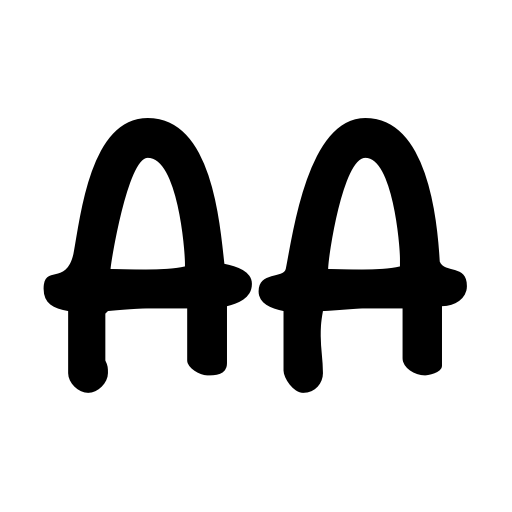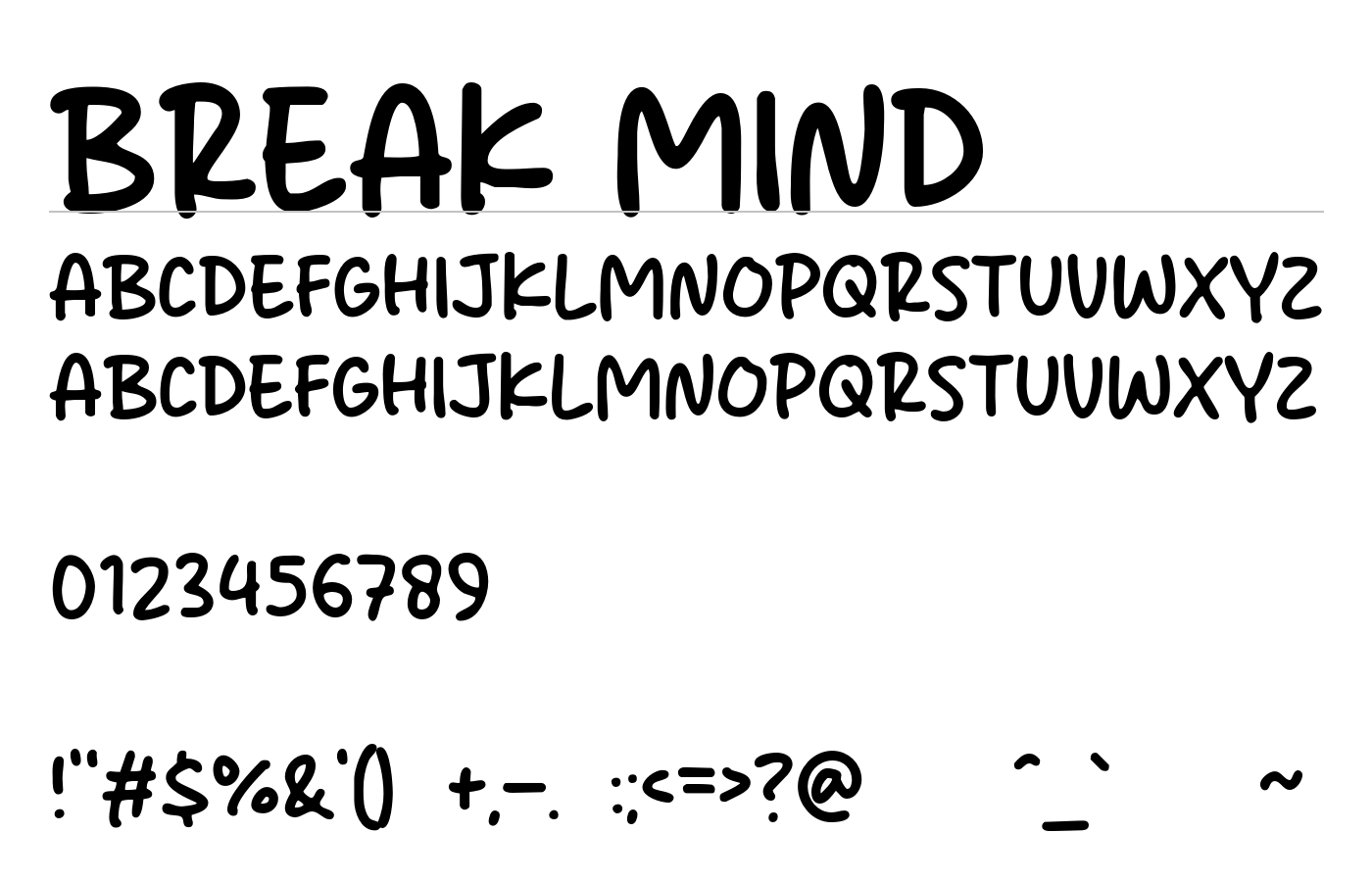
Break Mind is a playful, casual sans serif font with a hand-drawn, rounded style that feels friendly and informal. Its medium weight and slightly irregular strokes give it a warm, approachable character perfect for creative projects, children’s content, or relaxed branding. This font works well for headlines, posters, and packaging where a fun and personal touch is desired.
Break Mind Font
About Break Mind Font
| Font family | Break Mind Font |